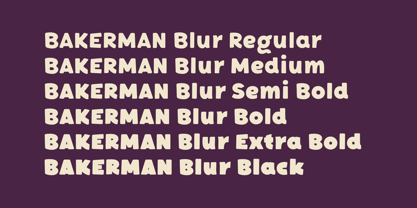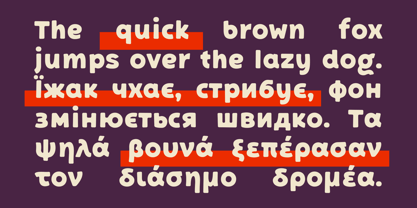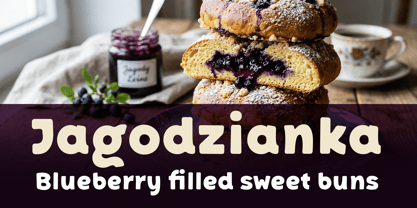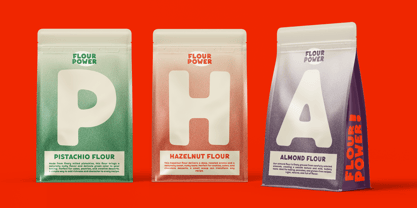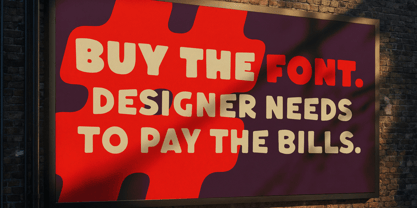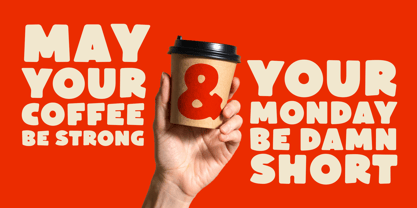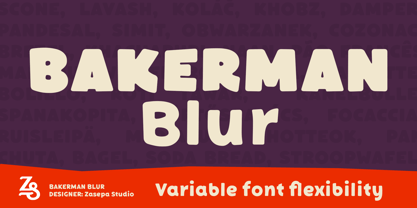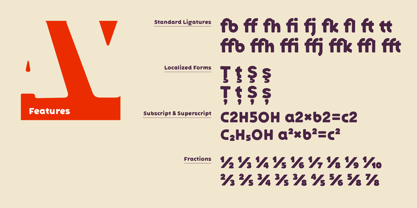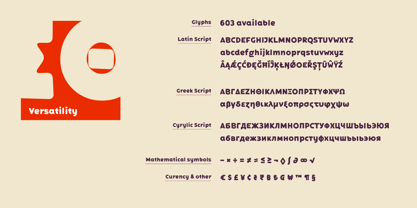
Bakerman Blur
by Zasepa Studio
The Bakerman Blur Font Family was designed by Hubert Zasepa and published by Zasepa Studio. Bakerman Blur contains 7 styles and family package options. More about this family
Bakerman Blur is a rounded, softened version of Bakerman Sans that creates a subtle blurred effect. Its thick, marker-inspired strokes are smoothed at the corners, giving a warm, friendly, and approachable look. Designed in multiple widths, Bakerman Blur combines bold presence with playful softness. Ideal for branding, logos, packaging, headlines, posters, and lifestyle or craft projects, this font adds character and personality while maintaining readability and impact.
Designers: Hubert Zasepa
Foundry: Zasepa Studio
Zasępa Studio is an independent type design studio run by Hubert Zasępa. The studio develops original typefaces with extended language support, including Latin, Greek and Cyrillic. Each font is carefully designed with attention to detail and a focus on clarity, rhythm and distinctive character. At Zasępa Studio, typefaces are treated almost like personalities — every design has its own voice and visual identity.